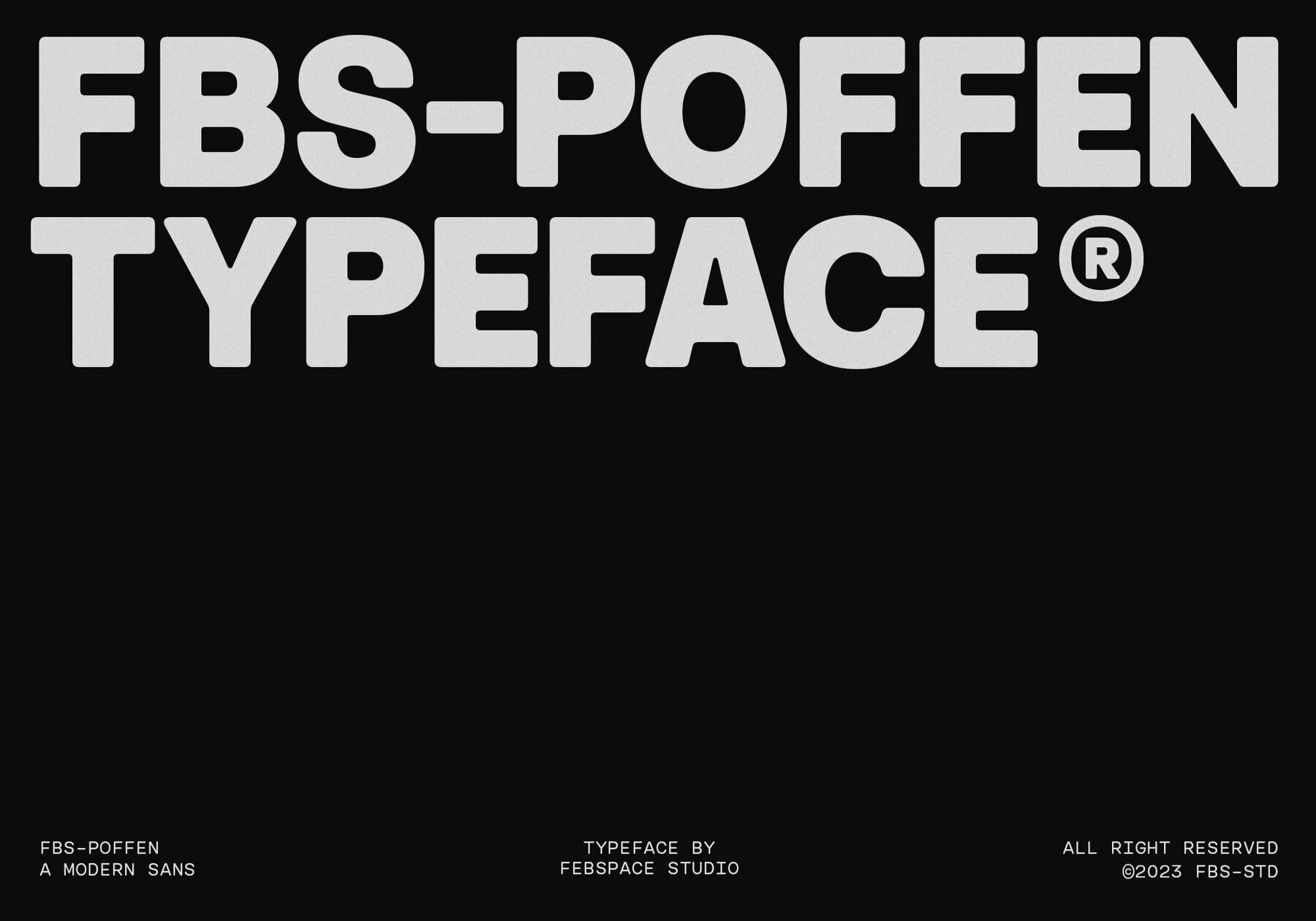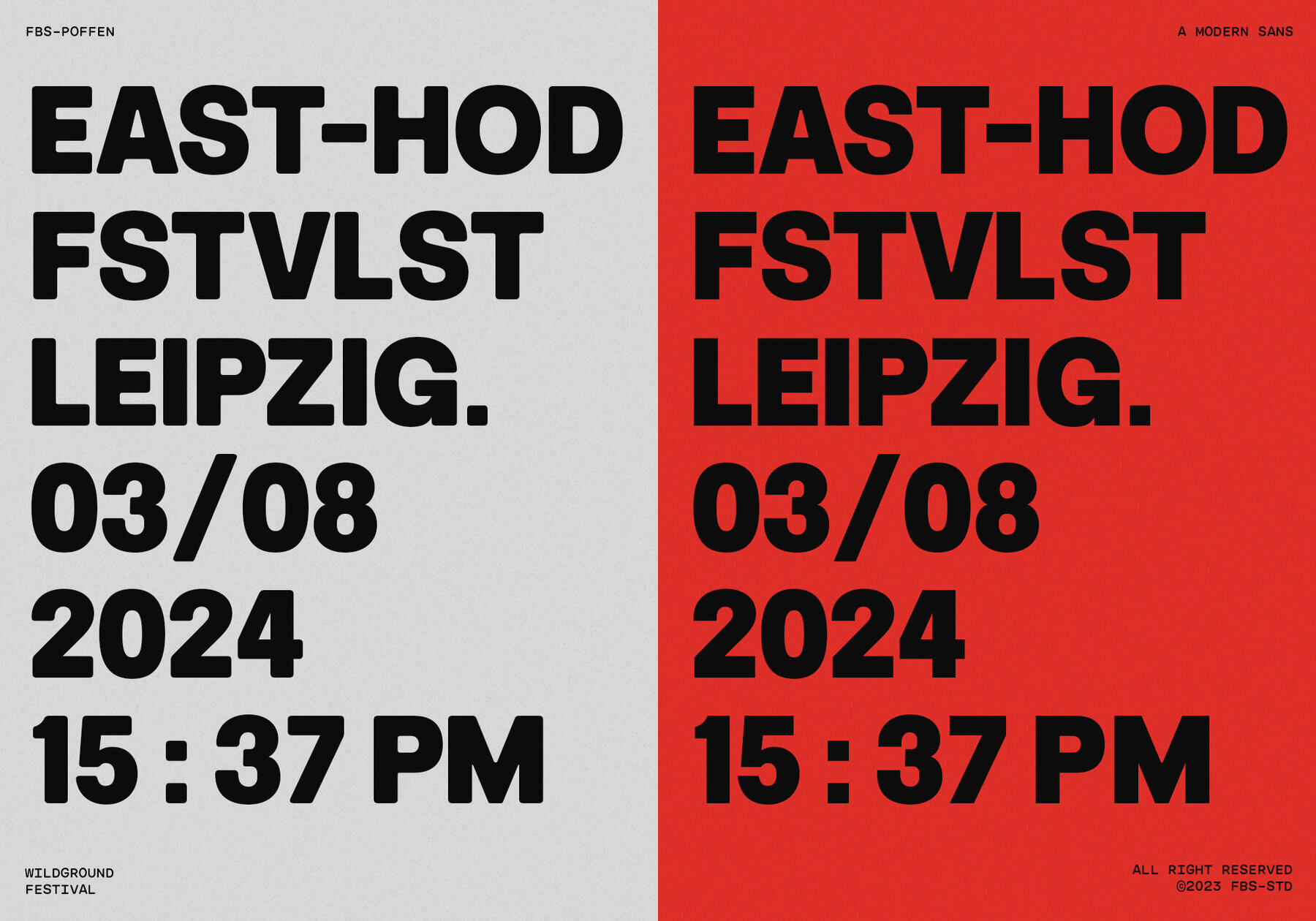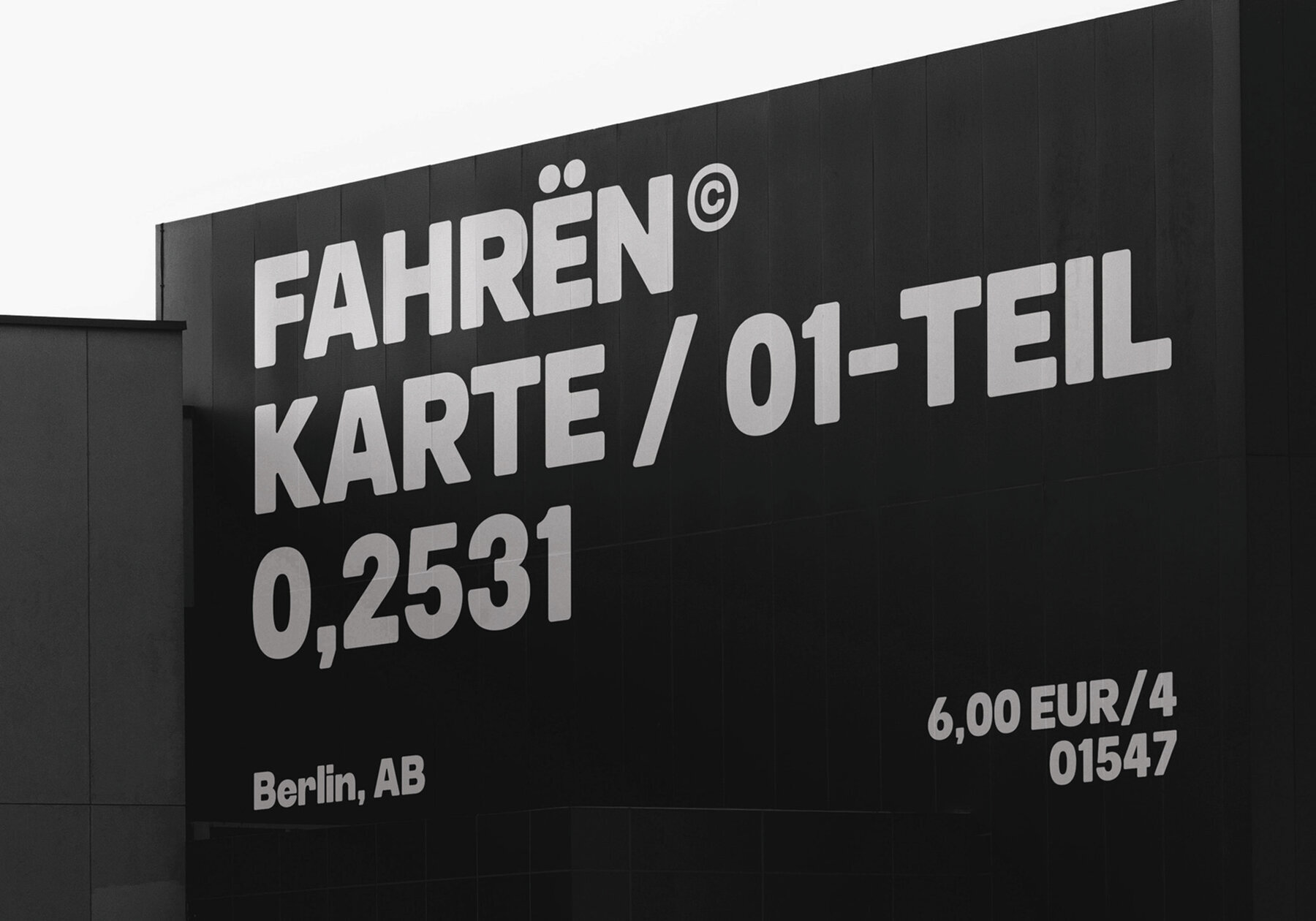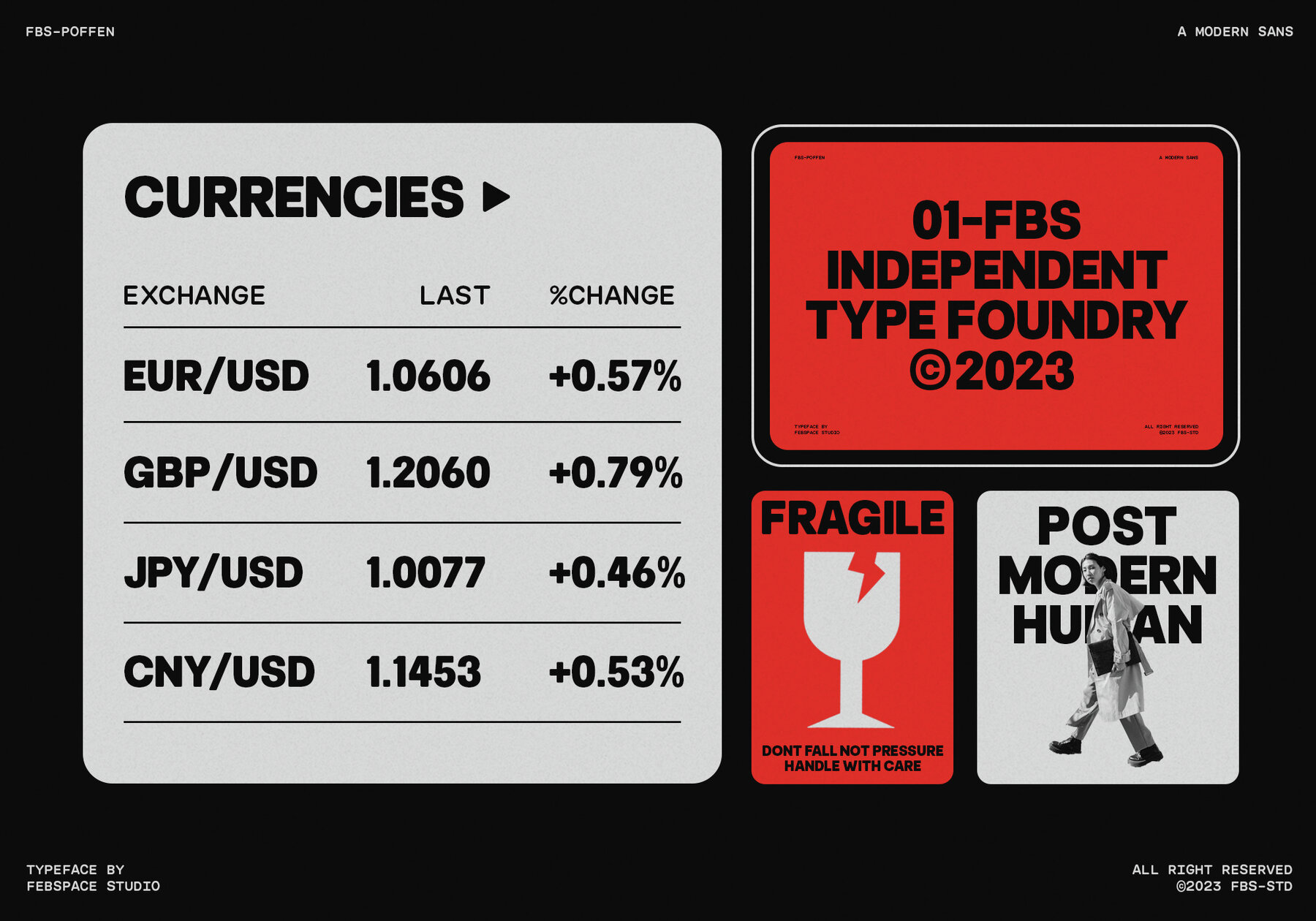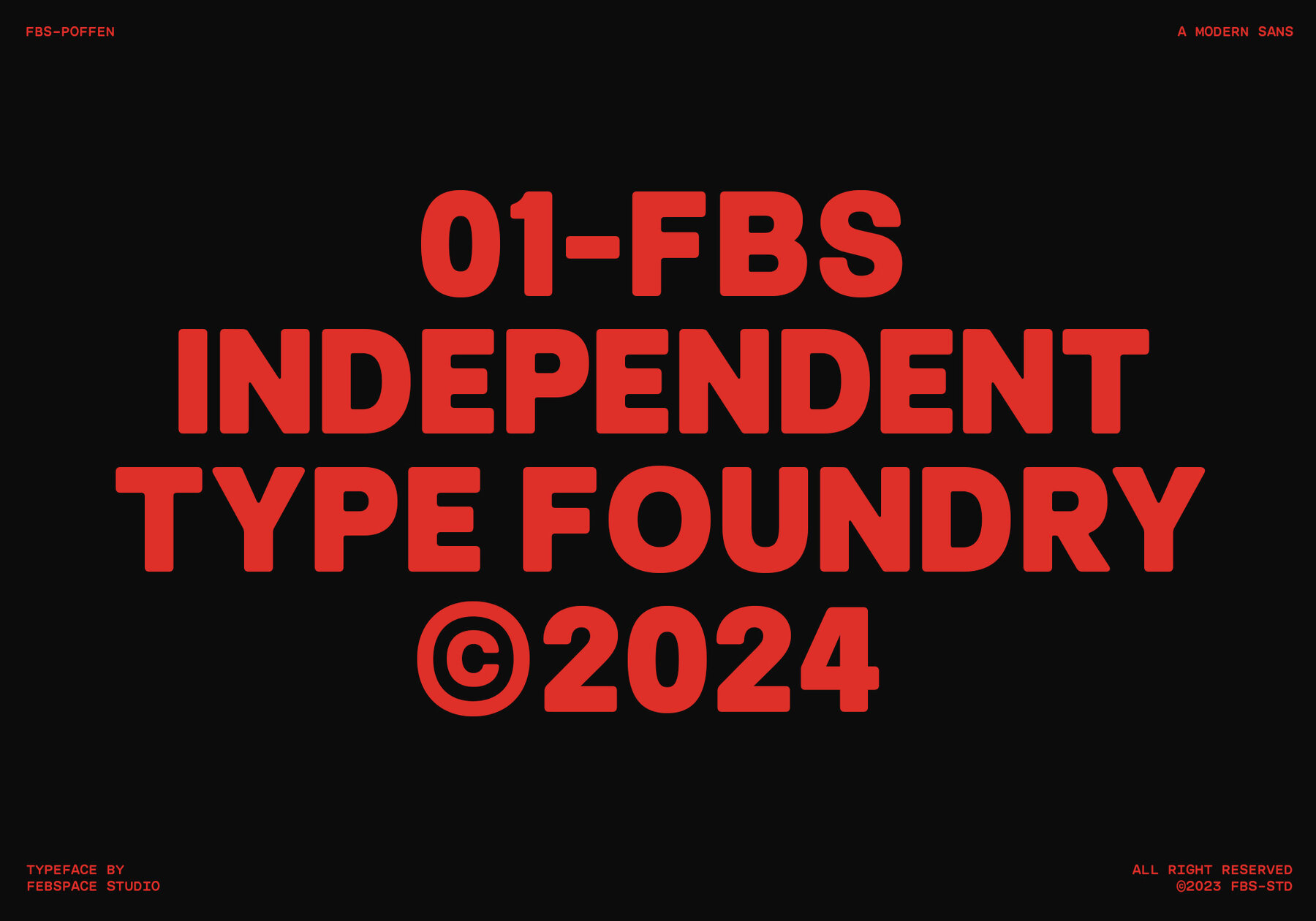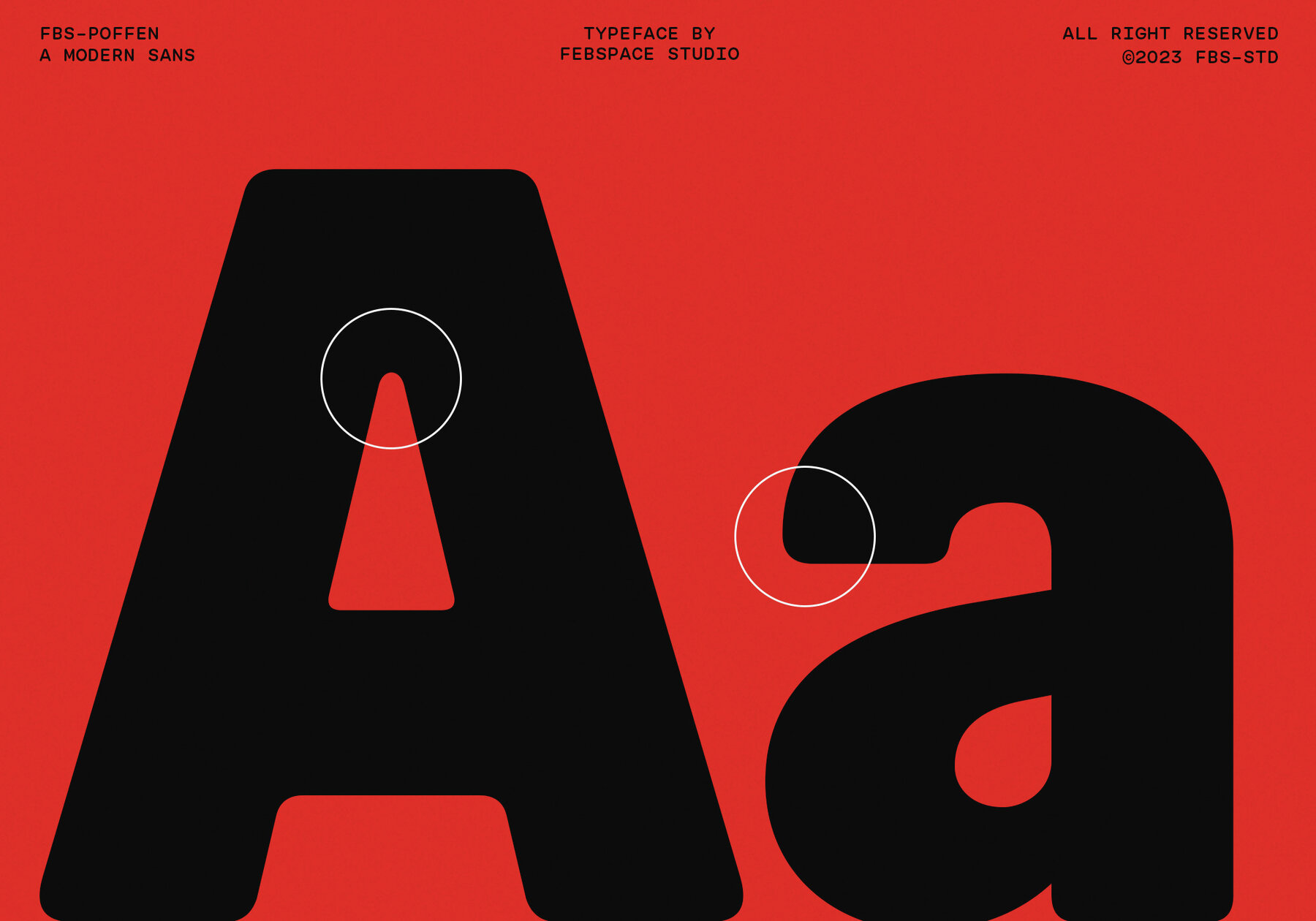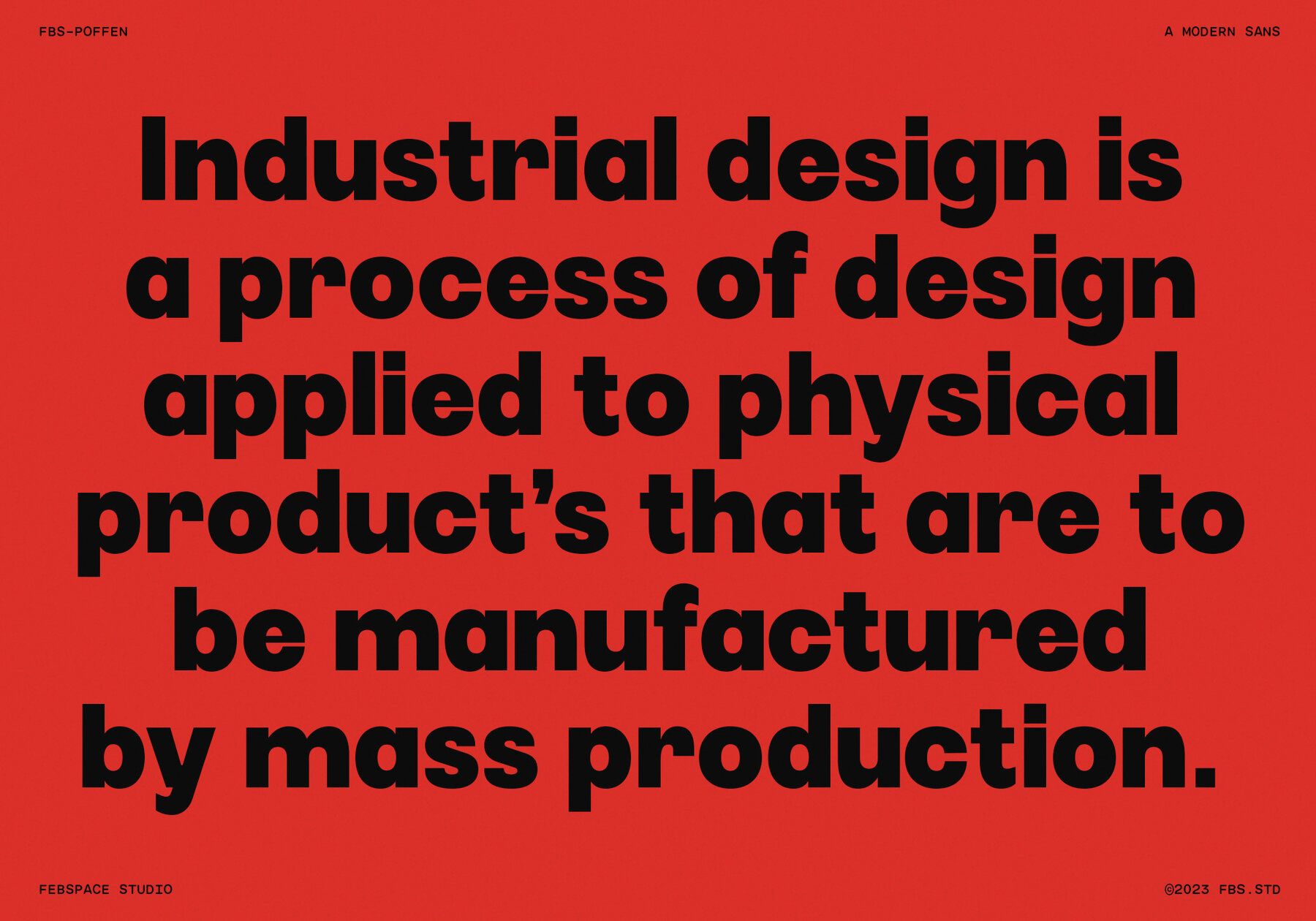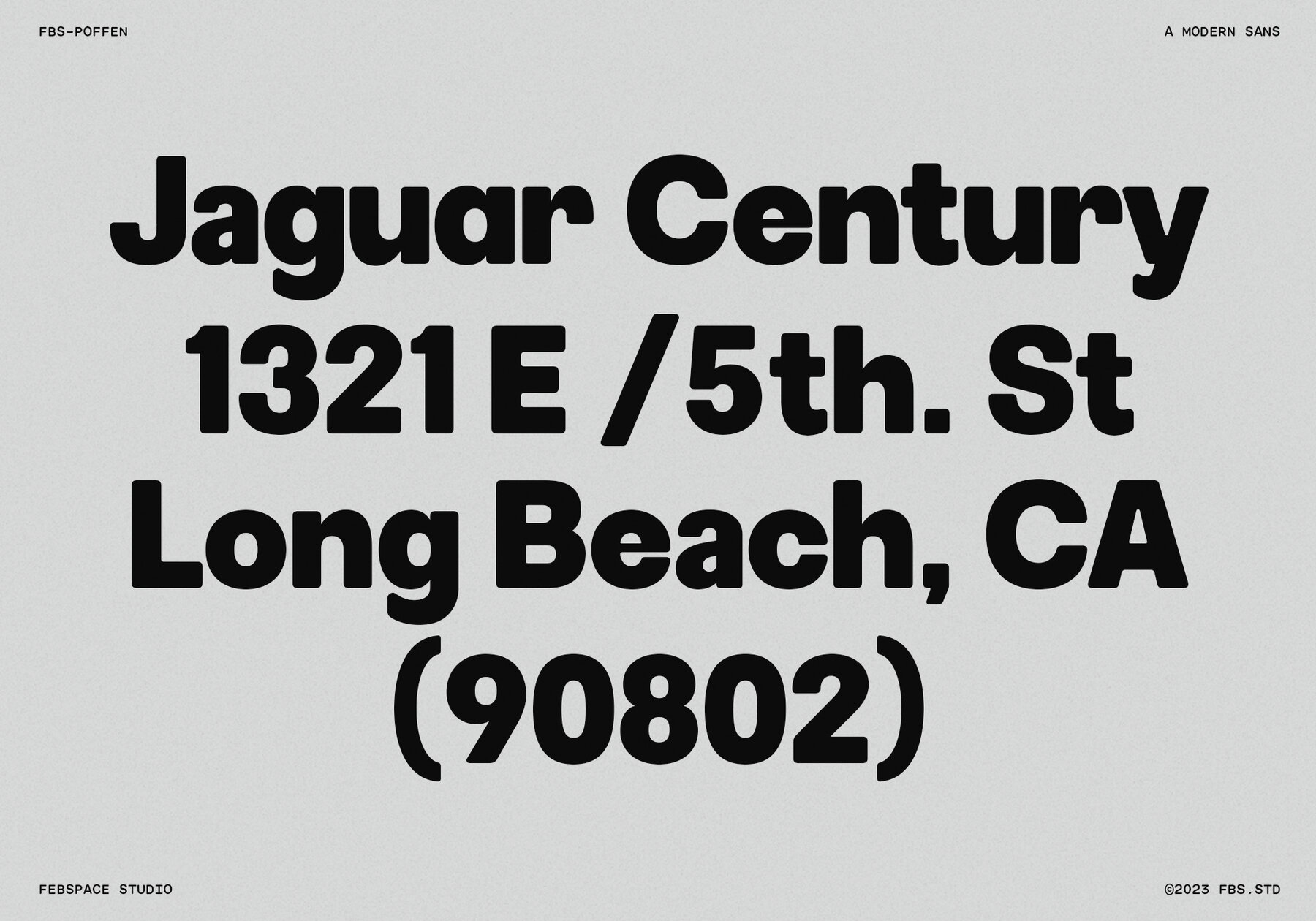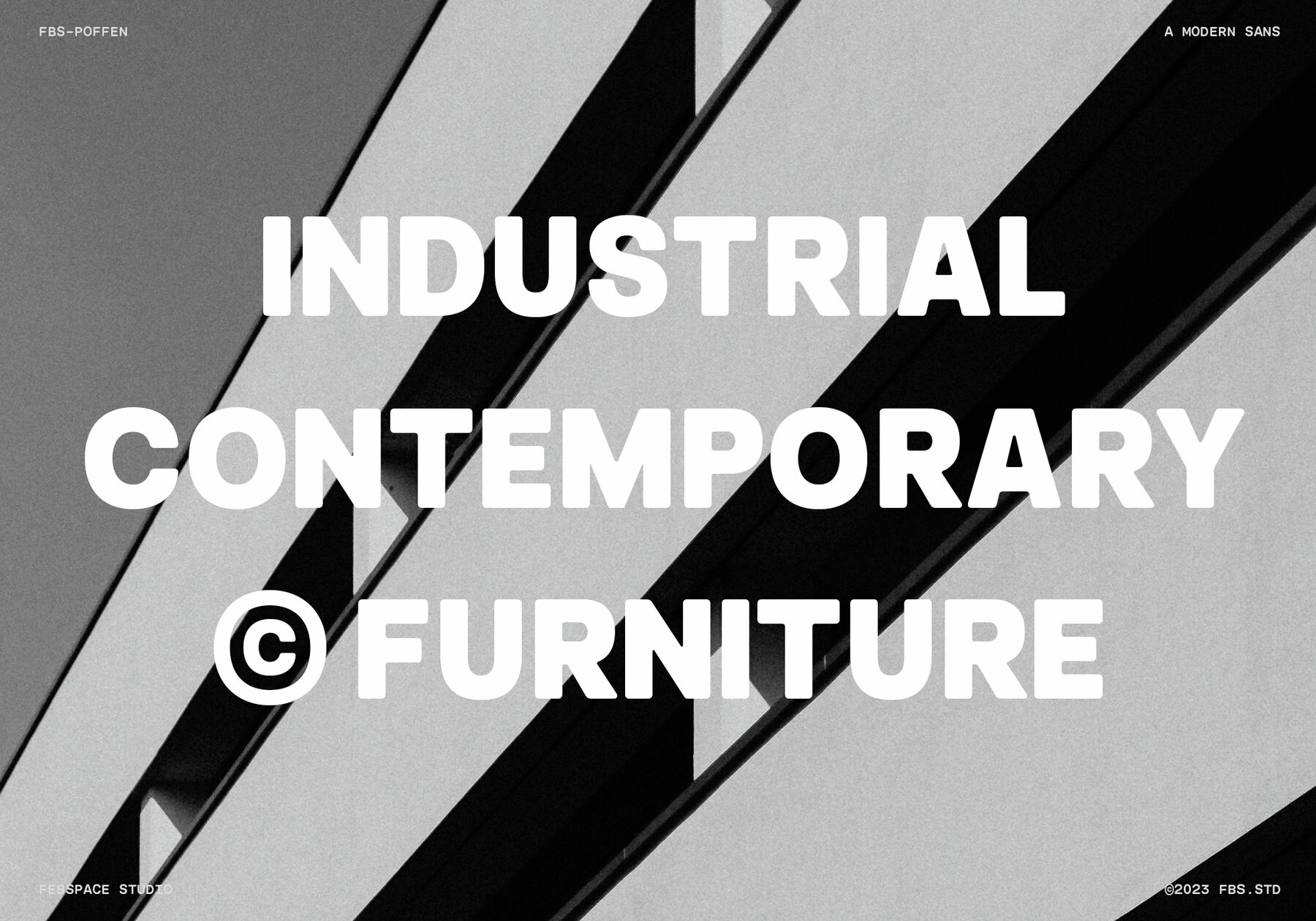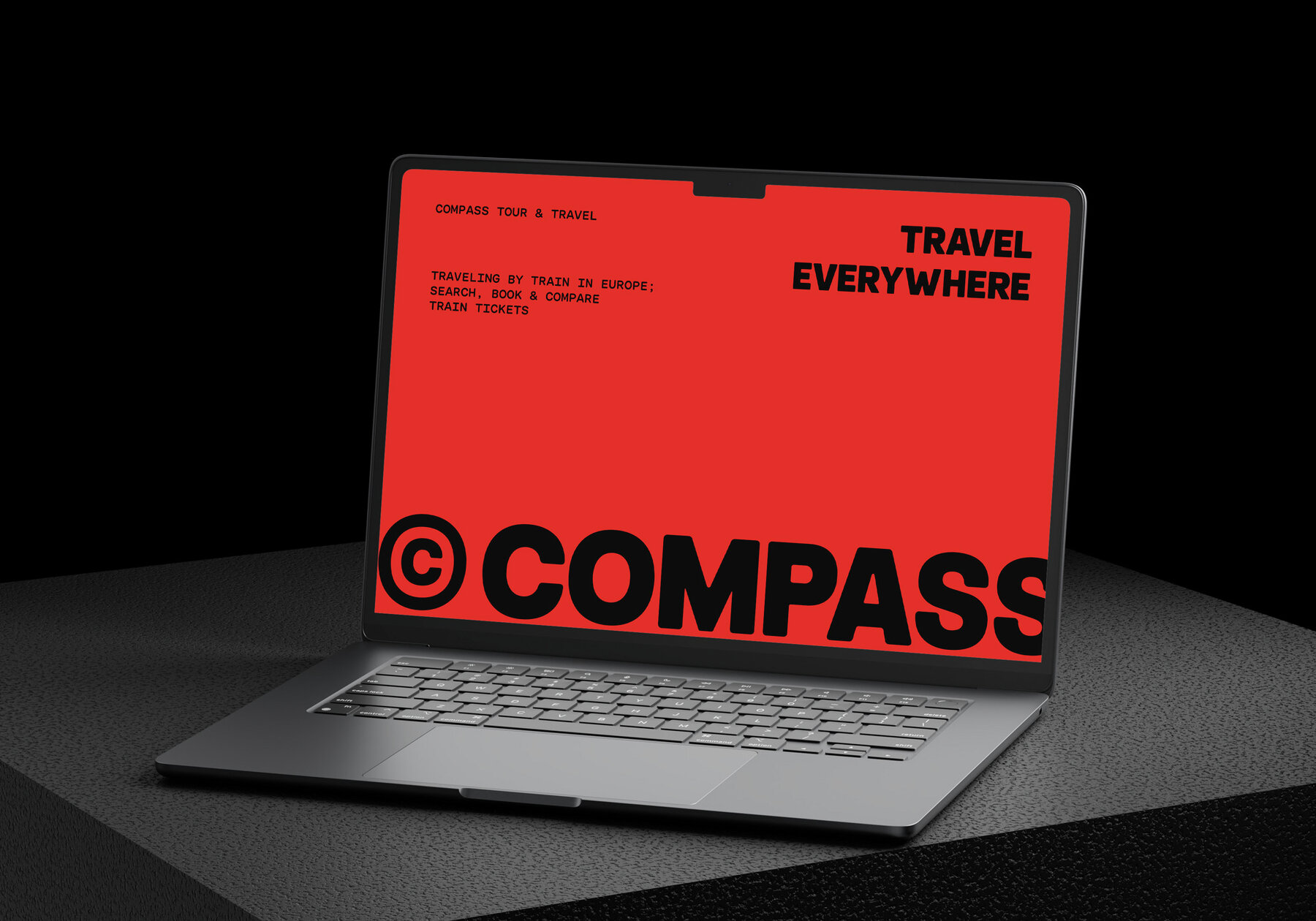
FBS Poffen Font
Introducing FBS Poffen, the versatile sans-serif font that's here to elevate your designs! With four dynamic styles, each offering rounded and pointed corner options, as well as a slanted variant, FBS Poffen gives you the flexibility to tailor your typography to perfection. Seamlessly integrate it into your projects and unleash your creativity with its timeless elegance. Upgrade your design toolkit today and let FBS Poffen transform your work!